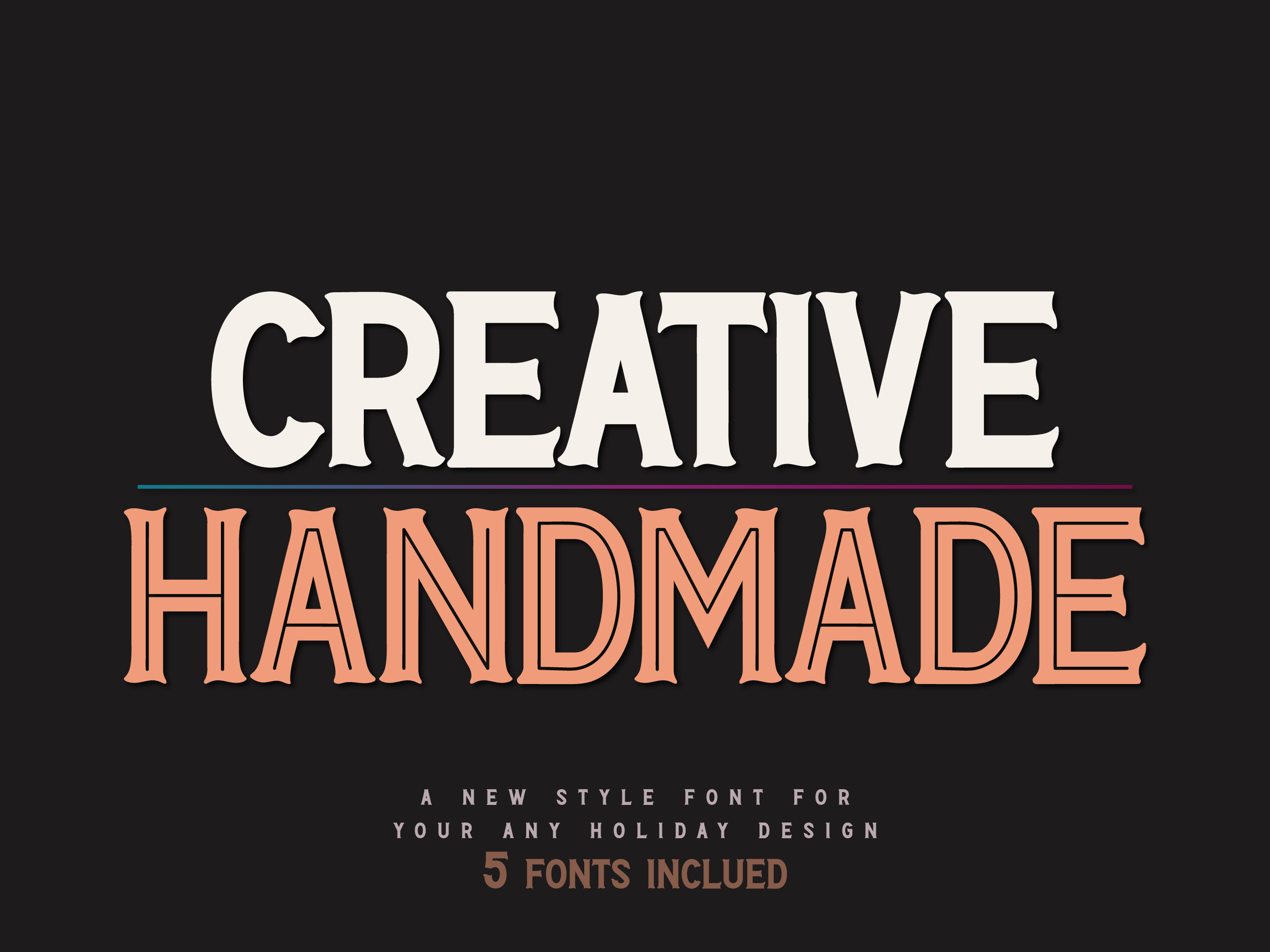
Creative Handmade - Display Font
Creative Handmade is a fun and quirky display font perfect for use on any design idea! This is a cool, vintage-style handwritten font. This font is perfect for vintage and holiday designs, badges, logos, t-shirts, posters, branding, packaging, signage, book covers, logos, branding, invitations, stationery, wedding designs, social media posts, and much more!